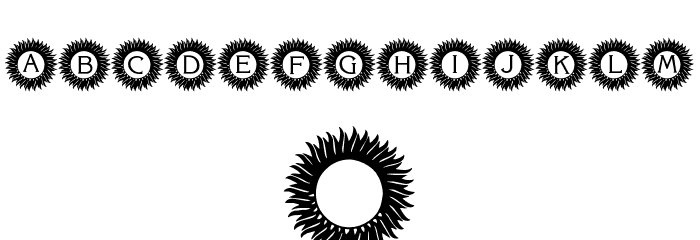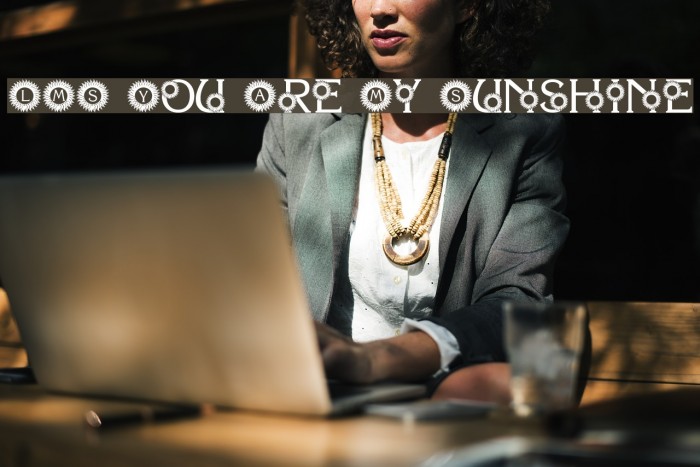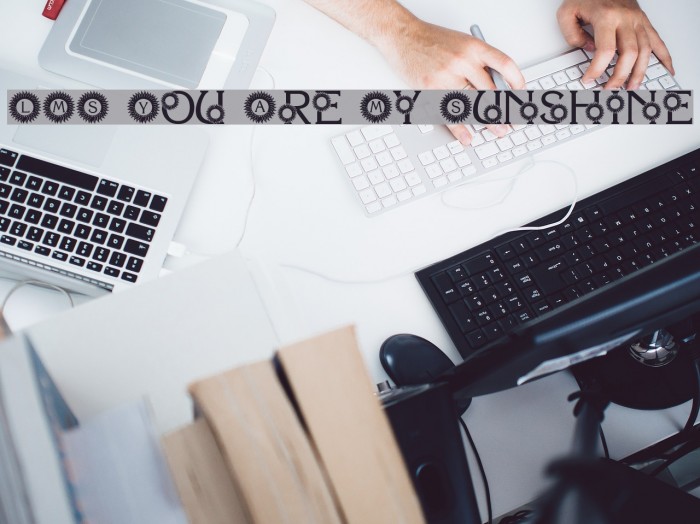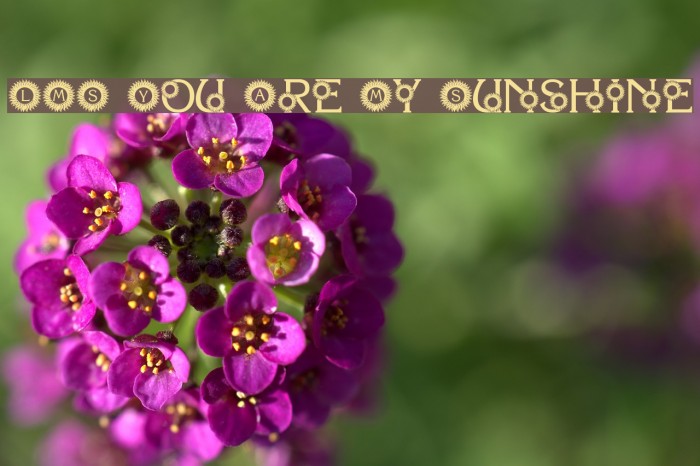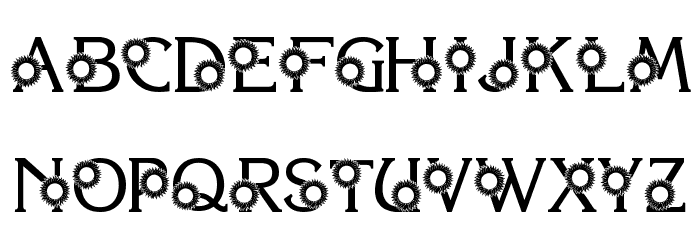
LMS You Are My Sunshine Font
This font features a unique and decorative style, incorporating sunburst motifs into each character. The uppercase letters are bold and striking, with each letter encased in a circular sun design, creating a visually captivating effect. The font's design is both playful and artistic, making it ideal for projects that require a touch of creativity and flair. The intricate details of the sunburst pattern add depth and dimension, making it stand out in any design context. This font is perfect for creating eye-catching headlines, logos, and posters that demand attention and convey a sense of warmth and energy.
A decorative font with sunburst motifs encasing each character, ideal for creative projects.
• Proposed Projects: Perfect for designing logos, posters, and headlines that require a creative and energetic touch.
• Category: Decorative/Display
• Bold: Yes
• Italic: No
• Weight: Bold
• Width: Normal
• Character Spacing: Normal
• Contrast: High
• Overall Style: Decorative
• Use Case: Headlines, Logos, Posters